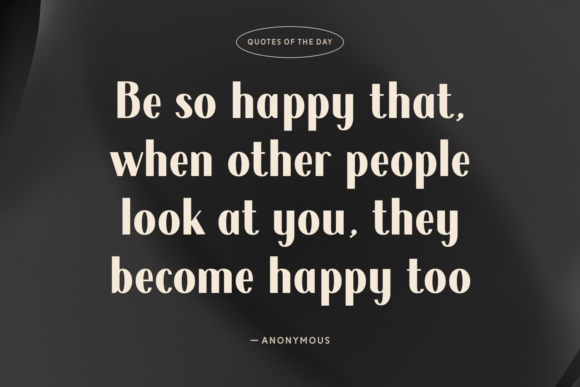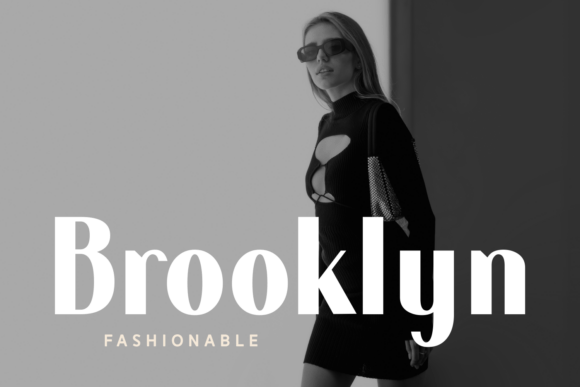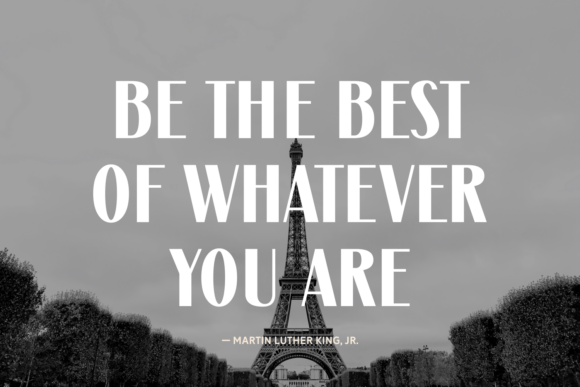
Introduction to Hiding Place Font
Hiding Place is a high-impact sans serif font that blends classic elegance with bold character.
With tall, condensed letterforms and stylish contrasts, it’s built to command attention in headlines, posters, magazine spreads, and upscale branding projects Perfect for those who want to make a lasting visual impression.